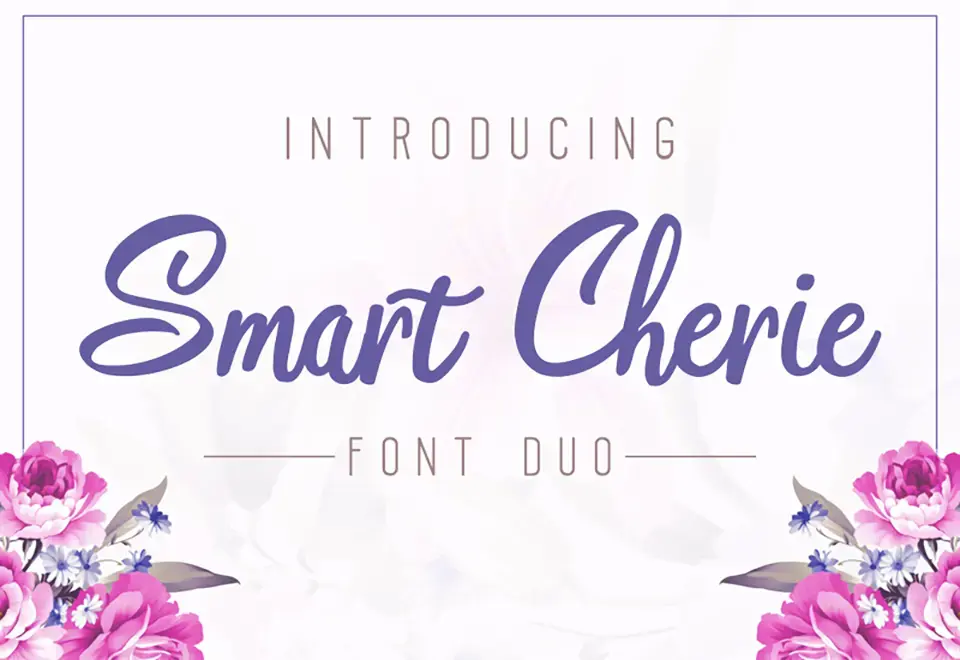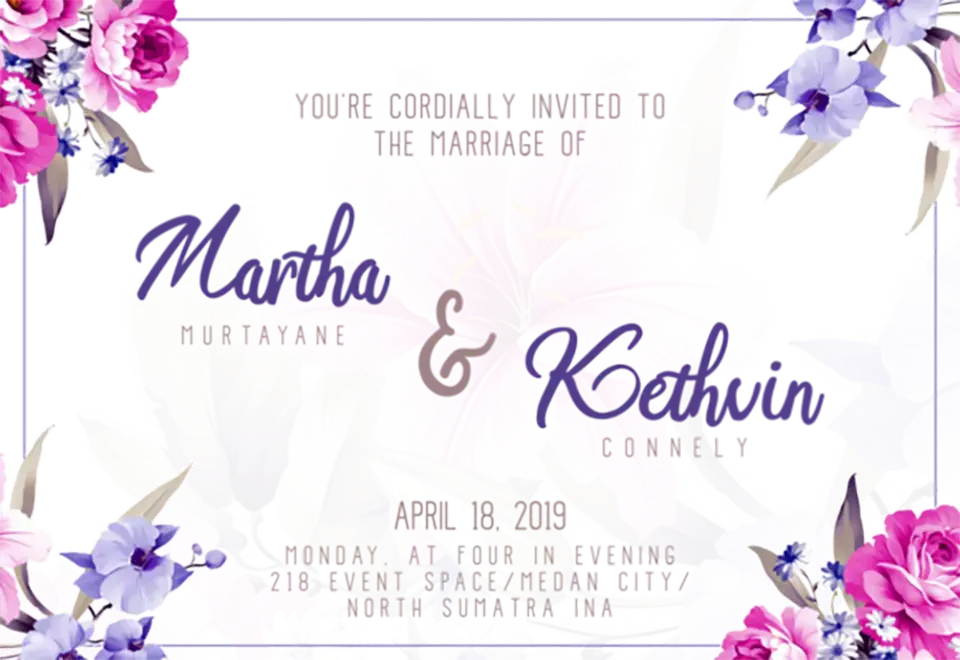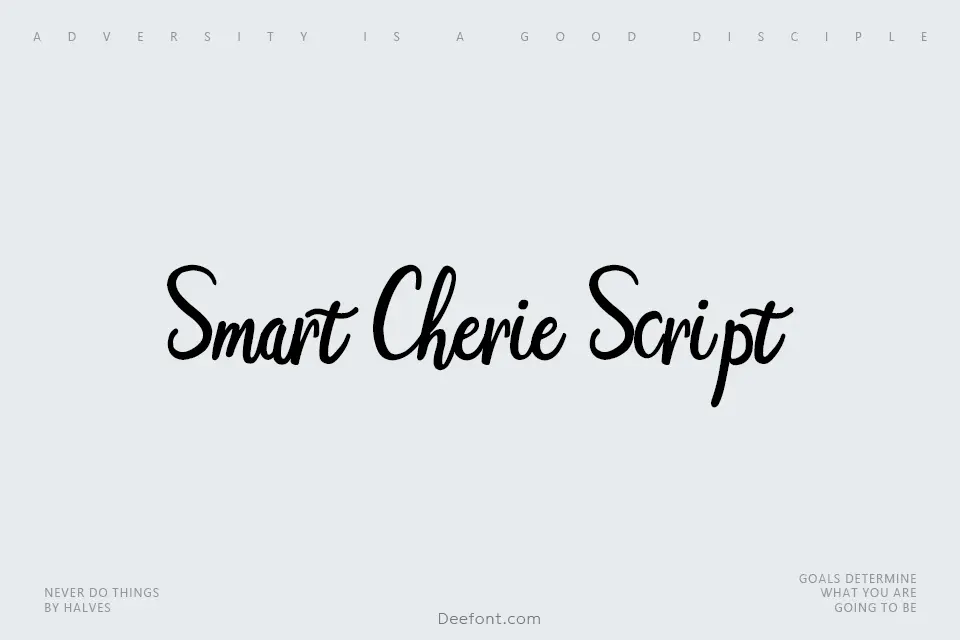
Smart Cherie Script Font
Smart Cherie Script is an exquisitely crafted handwritten script typeface that combines natural fluidity with sophisticated elegance. Designed with delicate strokes and charming curves, this font delivers an authentic hand-lettered aesthetic ideal for luxury branding, decorative invitations, artistic posters, wedding announcements, magazine headlines, and upscale packaging design. The graceful letterforms create an enchanting, approachable personality while maintaining professional polish. With 14 swash alternates and extended character support, Smart Cherie Script seamlessly enhances premium creative projects demanding both warmth and visual refinement.